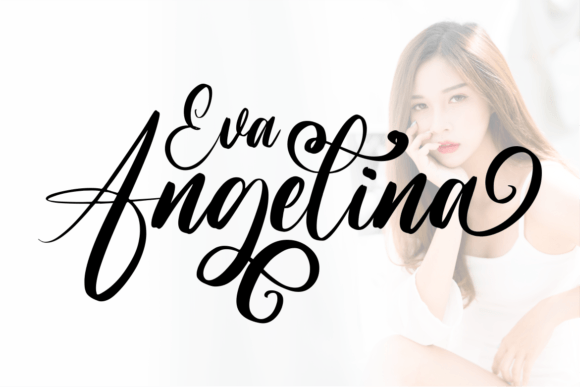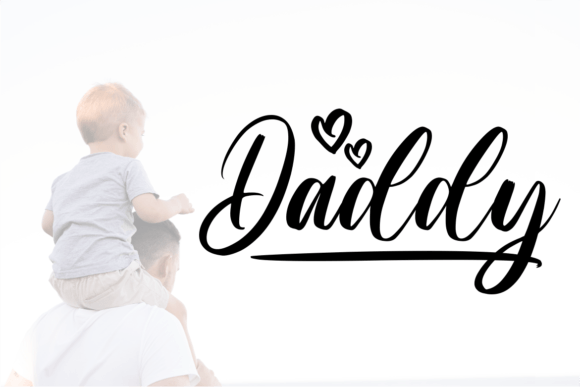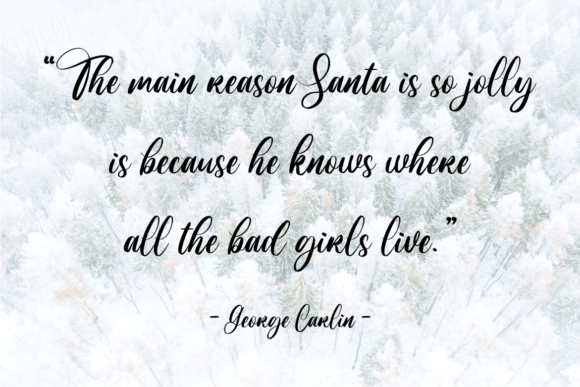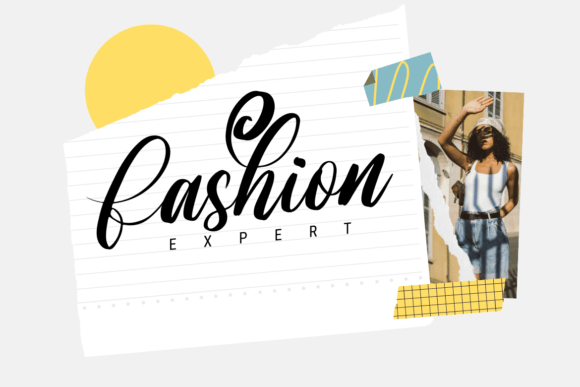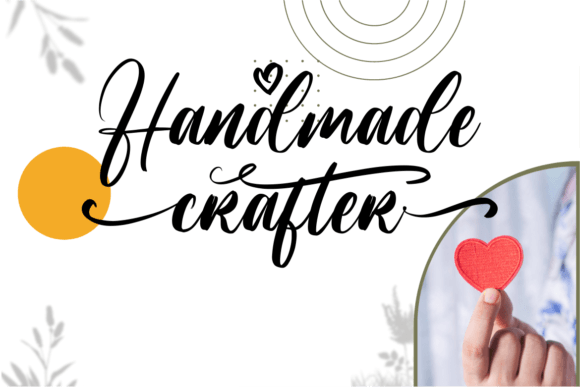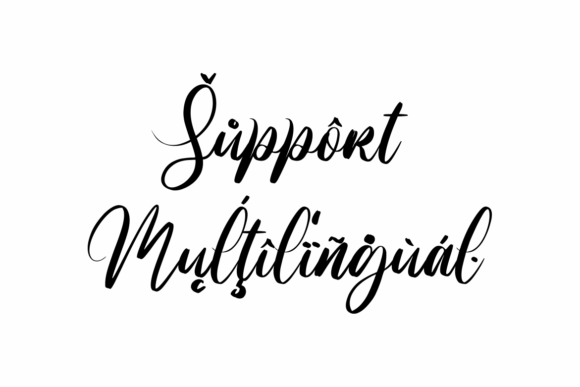
Get Ready to Deck the Halls with Style
It’s the most wonderful time of the year – and for designers, that means finding the perfect font to make your projects shine. For me, it’s the moment I’m rummaging through my font collection, searching for that one special script that captures the magic of the season. That’s when I stumbled upon the Christmas Font – a delicate, elegant, and stylish handwritten font that has been a game-changer for me.
The Christmas Font is more than just a pretty face; it’s a versatile script font with a wide range of applications, from greeting cards to headlines. Its PUA encoding makes it easy to access all the glyphs and swashes, giving you endless possibilities to add a romantic feel to your next project. Whether you’re a seasoned designer or just starting out, this font is a must-have in your collection.
Key Features of Christmas Font
- Unique Characteristics: Features a festive and playful design, with intricate details and ornaments, making it perfect for holiday-themed designs.
- Language Support: Supports a wide range of languages, including Latin, Cyrillic, and Greek, allowing for global design applications.
- Font Weight: Includes light, regular, bold, and extra bold font weights, providing versatility for various design styles.
Designer Review: Christmas Font
Overall, the Christmas Font is a decent addition to any holiday-themed design project. Here’s what I like about it:
- ✨ The font is playful and fun, perfect for creating a festive atmosphere.
- ✨ It’s available in various weights, making it easy to use in different design contexts.
- ✨ The font is well-behaved, meaning it’s easy to combine with other fonts and design elements.
- ⚠️ The font is quite limited in its customization options. You can’t really change the color or style to fit your specific design needs.
- ⚠️ Some characters, like the lowercase “a” and “e”, look a bit awkward and may not be suitable for all designs.
- ⚠️ The font is only available in a few languages, which may limit its use in international designs.
Overall, I’d say the Christmas Font is a solid choice for holiday-themed designs, but it’s not the most versatile font out there. If you’re looking for a fun, festive font that’s easy to use, it’s worth checking out. But if you need a more customizable or multilingual font, you may want to consider other options.
Tips for Getting the Most Out of the Christmas Font
Use the Christmas Font to create festive and holiday-themed designs. Experiment with different font sizes, colors, and styles to add visual interest to your designs.
Use the Christmas Font for:
- Holiday greeting cards
- Christmas party invitations
- Gift tags and wrapping paper
- Christmas-themed social media graphics
Alternatives to Christmas Font for Designers
Great Vibes is a modern, elegant script font that is perfect for creating a festive atmosphere without being too over-the-top. It’s ideal for use in invitations, posters, and other promotional materials. Compared to Christmas Font, Great Vibes has a more refined and sophisticated feel, making it suitable for a wider range of design projects.
Carolyna Pro is a elegant script font that features a more refined and classic look compared to Christmas Font. It’s perfect for use in high-end branding, packaging, and advertising materials. This font is ideal for designers who want to create a sophisticated and luxurious feel without being too obvious with holiday-themed fonts.
Alex Brush is a beautiful, handwritten script font that adds a touch of elegance and sophistication to any design project. It’s perfect for use in invitations, greeting cards, and other personal items. Compared to Christmas Font, Alex Brush has a more refined and personal feel, making it suitable for designers who want to create a unique and intimate atmosphere.